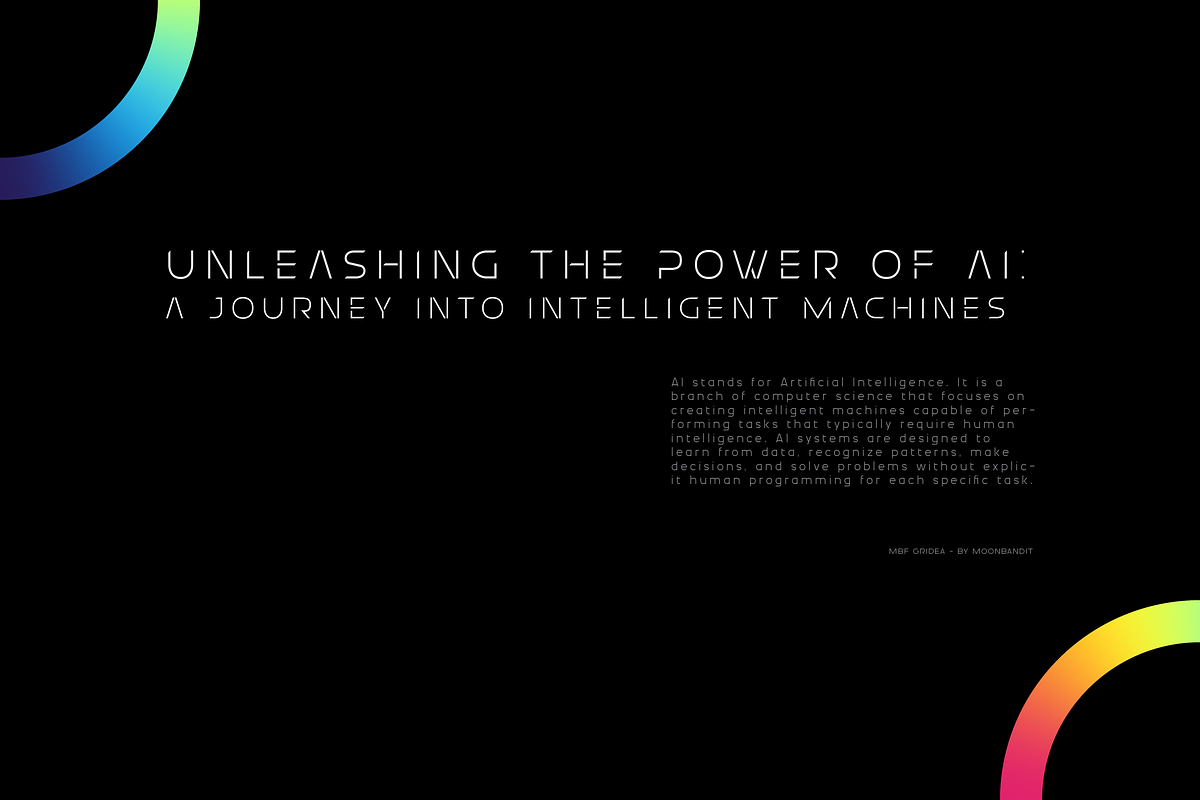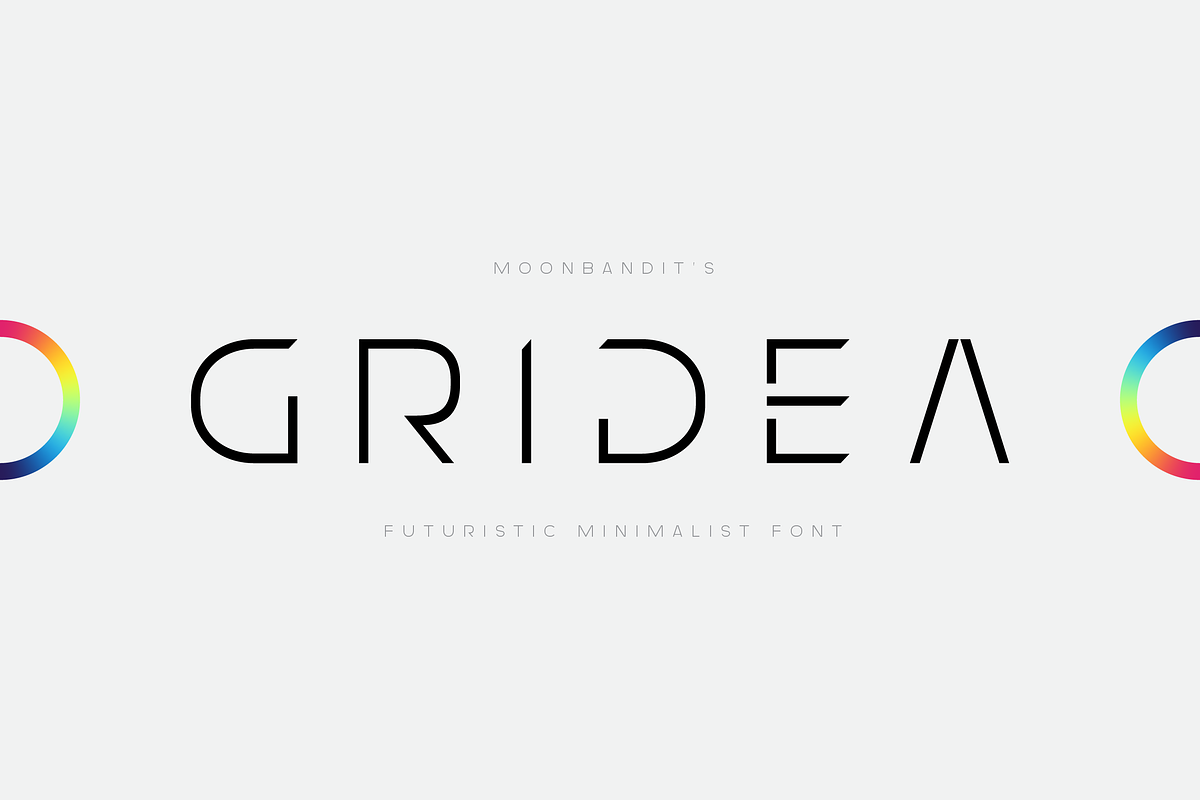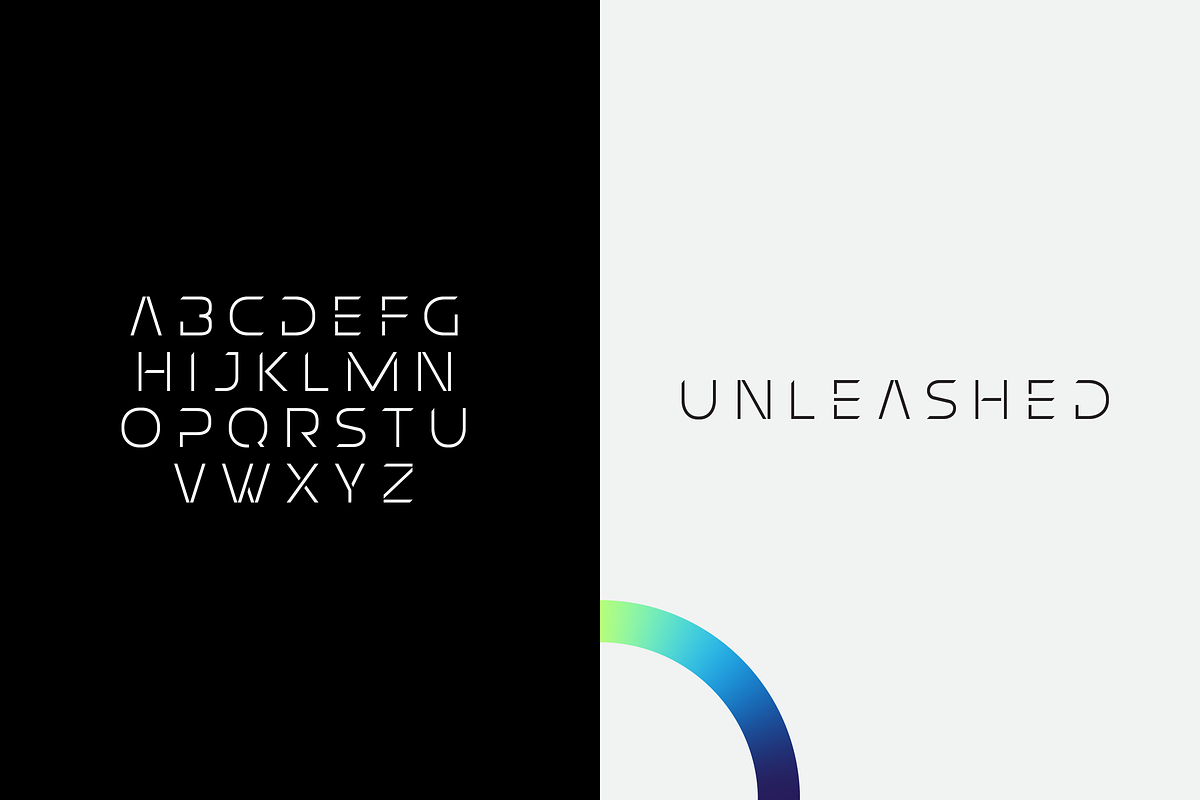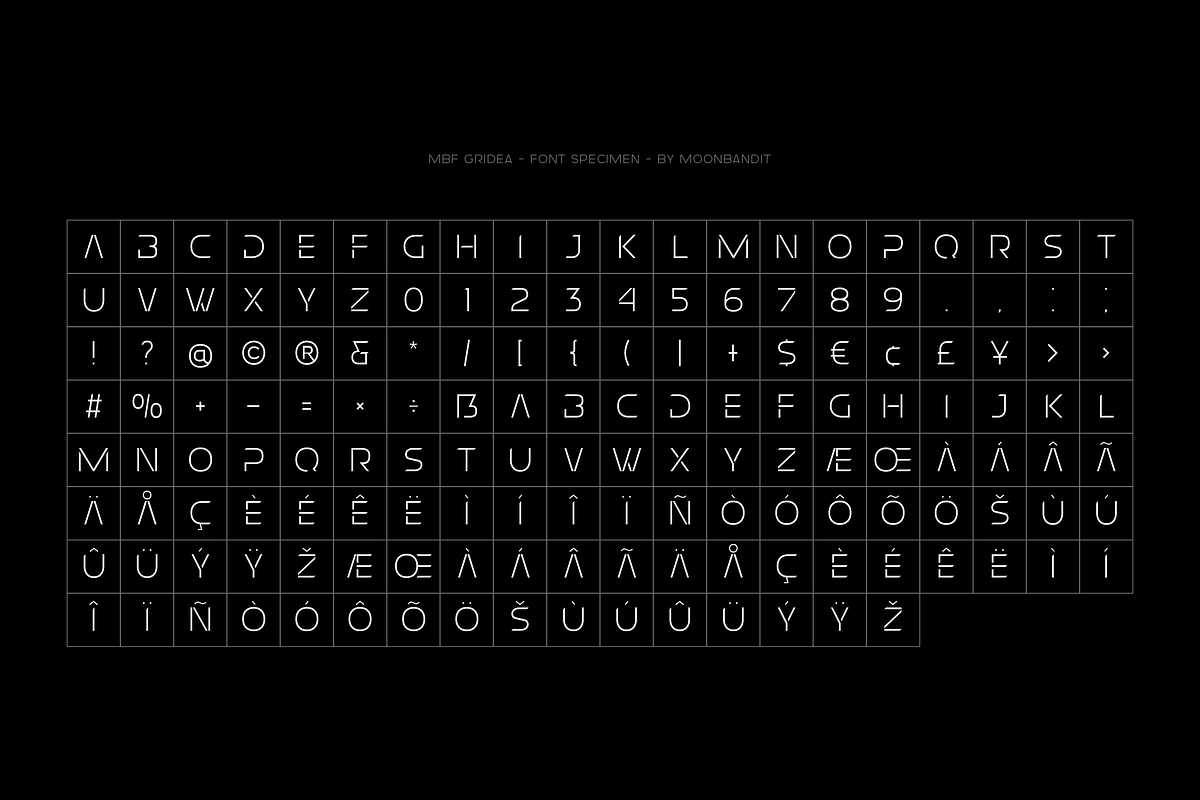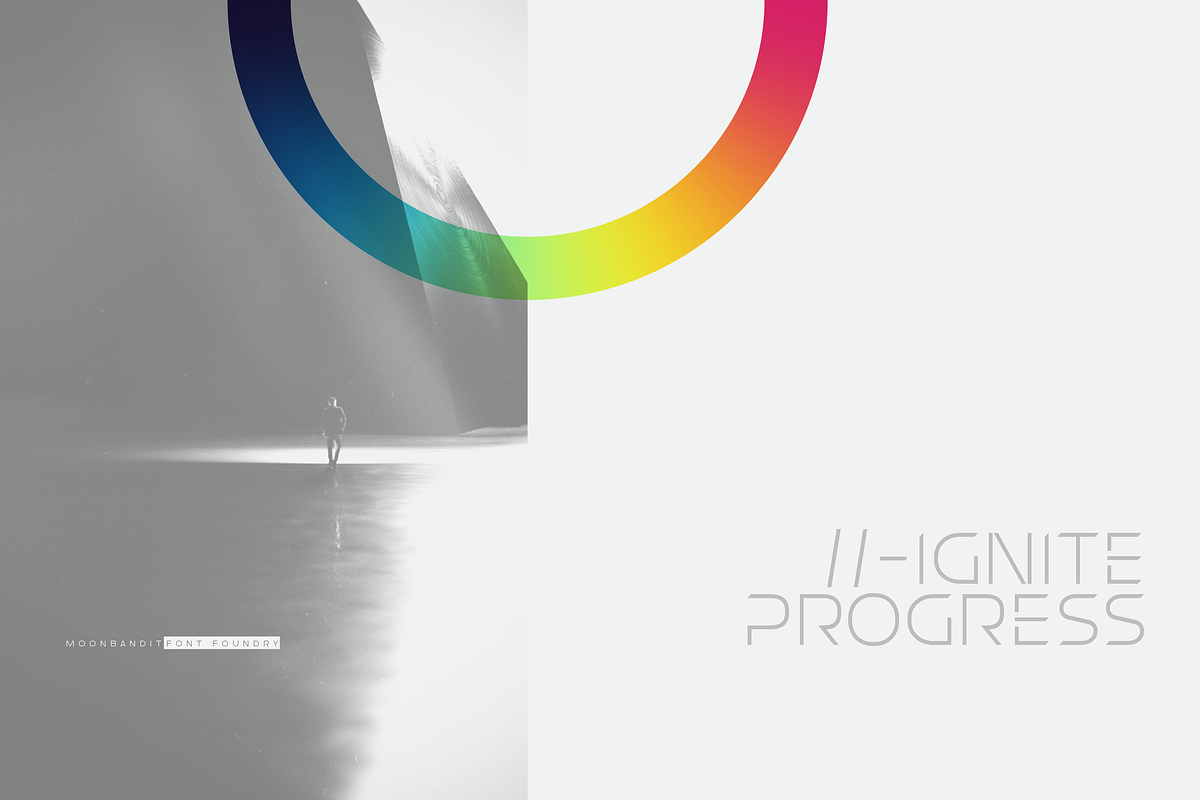
MBF Gridea - Modern Futuristic
Step into the future with MBF Gridea, an all caps futuristic sci-fi display typeface that embodies the essence of advanced technology and innovation. Gridea takes typography to the outer limits of imagination.
Inspired by the clean lines and geometric precision of grid-based designs, MBF Gridea exudes a sense of order and modernity. Its sleek and angular letterforms radiate a sense of technological prowess, making it the perfect choice for projects that demand a cutting-edge and forward-looking aesthetic.
With its captivating presence, MBF Gridea is a versatile typeface that thrives in a wide range of applications. From high-tech interfaces and futuristic movie titles to sci-fi book covers and gaming graphics, this font effortlessly transforms ordinary designs into extraordinary visions of the future.
MBF Gridea's all caps construction ensures a bold and attention-grabbing impact, while its thoughtful kerning and spacing maintain readability even in the most complex typographic layouts. Whether it's on digital screens or in print, this typeface guarantees a seamless and immersive visual experience.
Embrace the spirit of innovation and explore new dimensions of design with MBF Gridea. Let your imagination soar as you unleash the power of this futuristic display typeface to create striking and visionary works that push the boundaries of what's possible in typography.